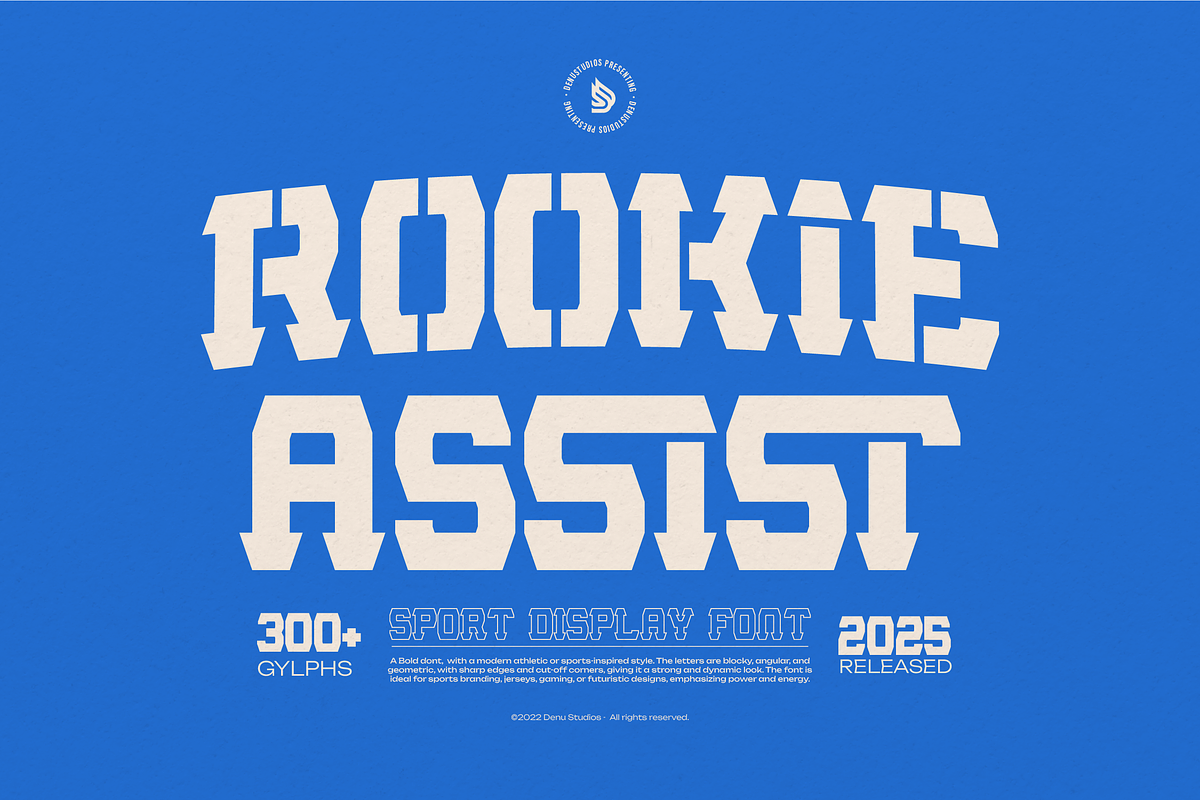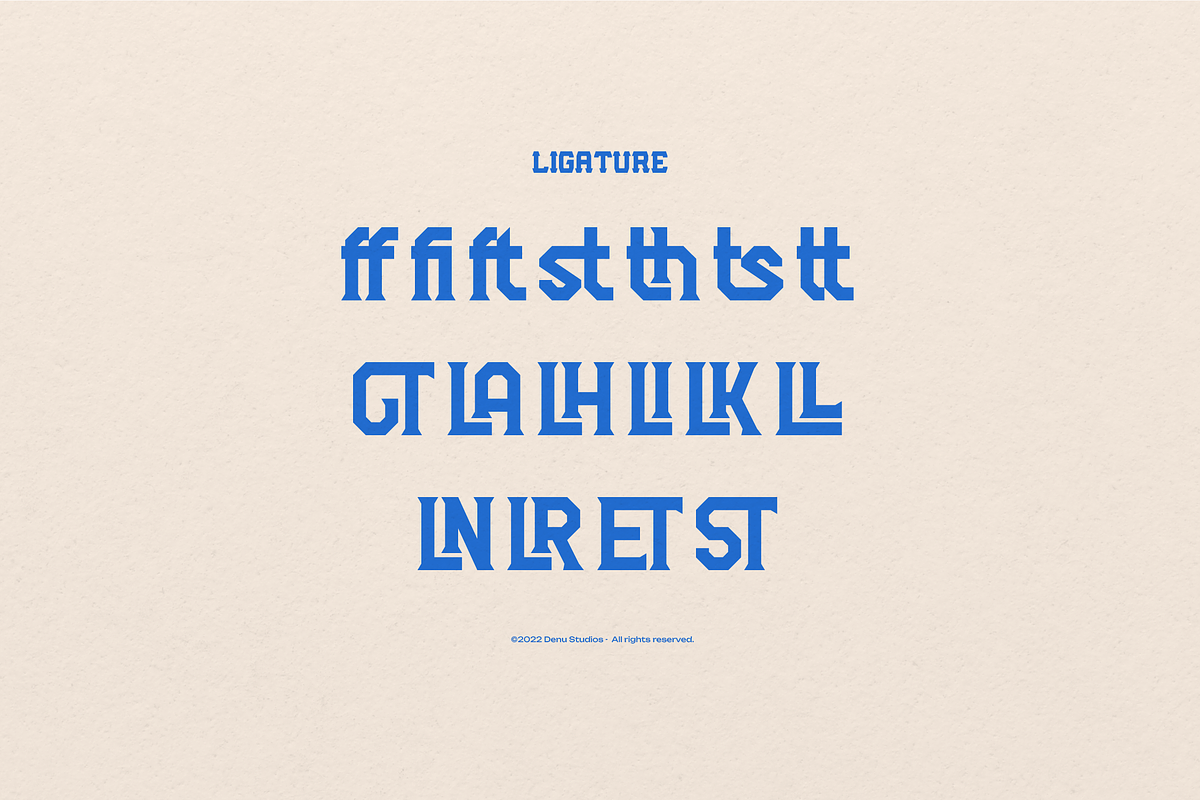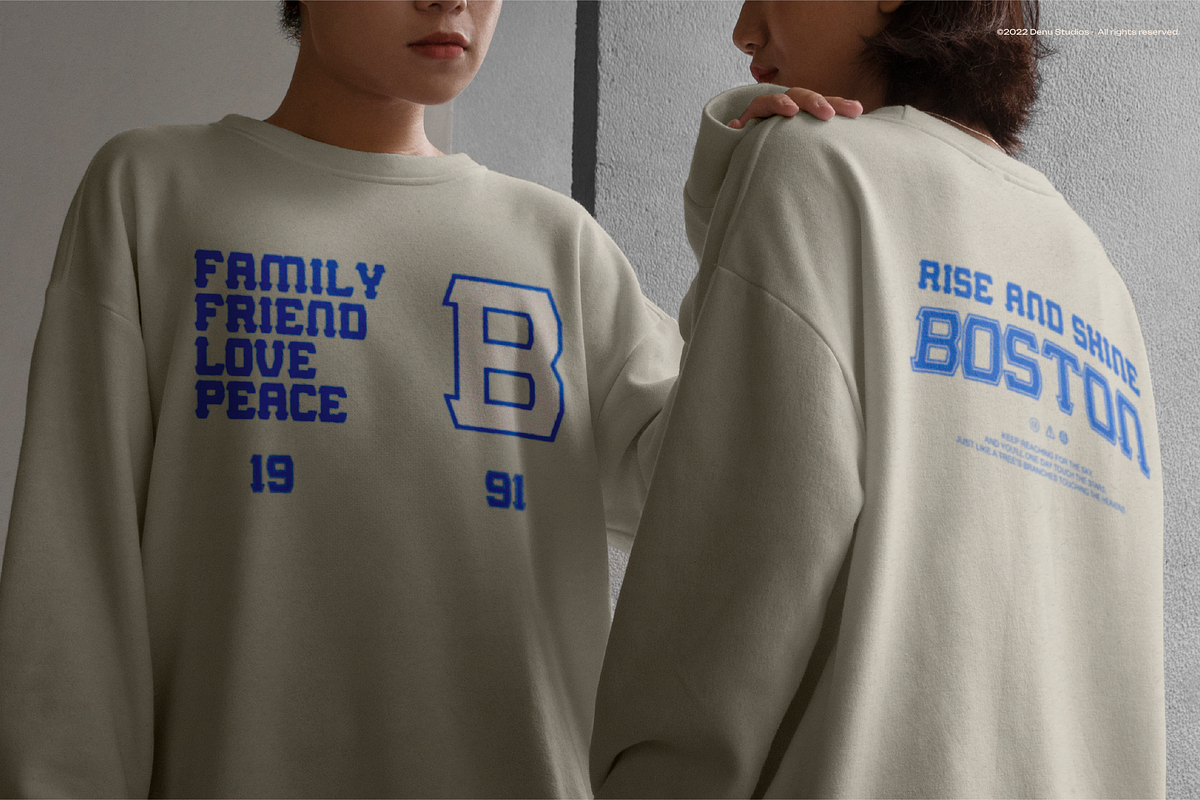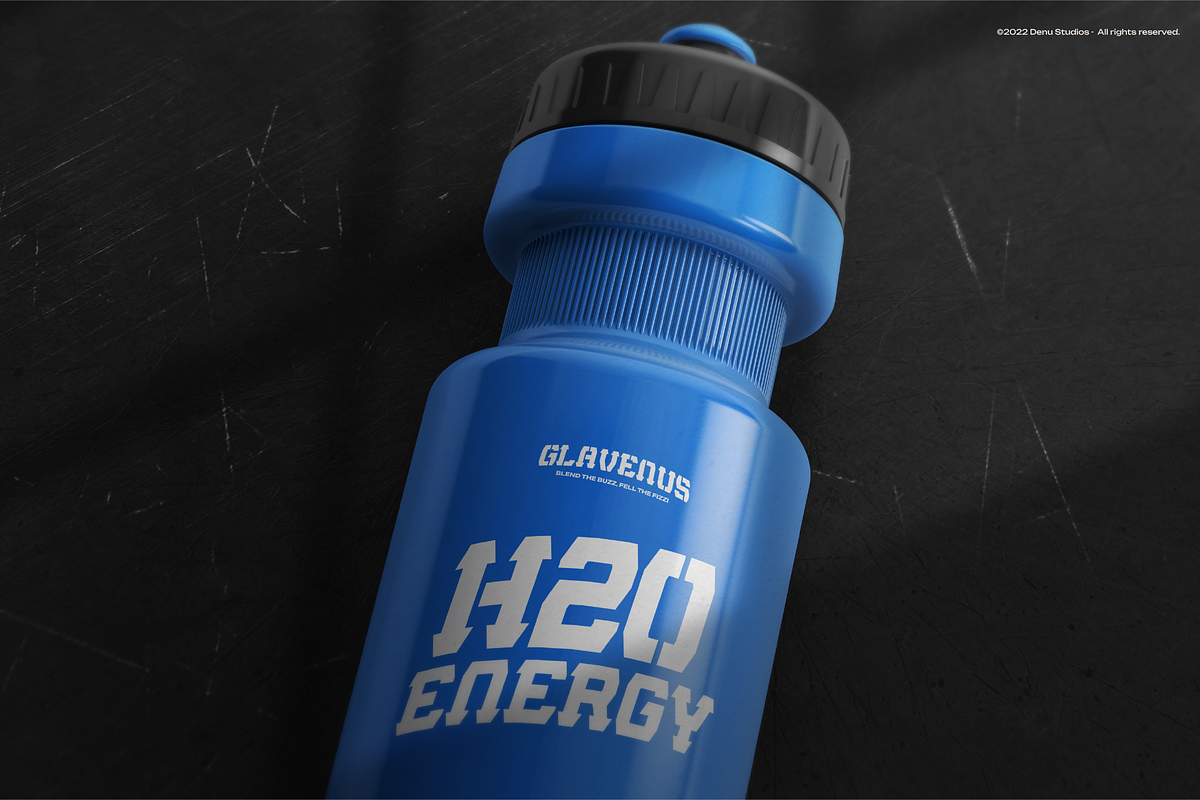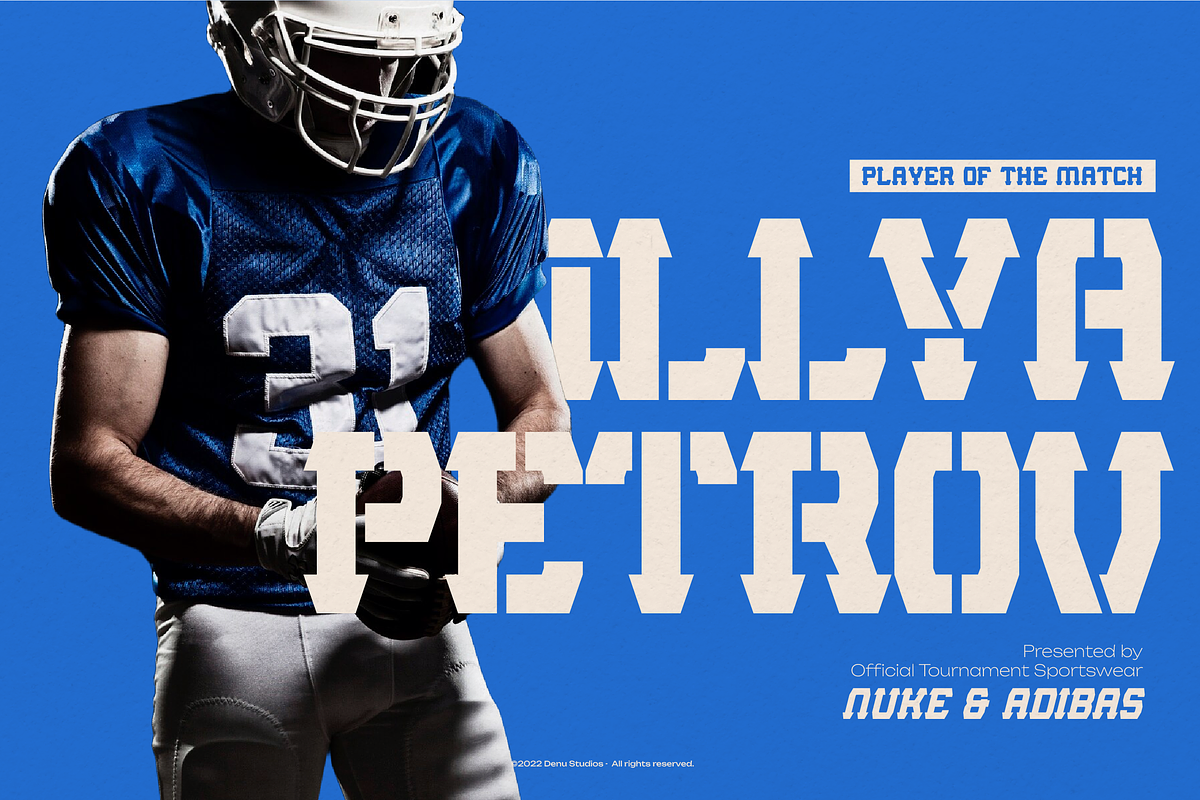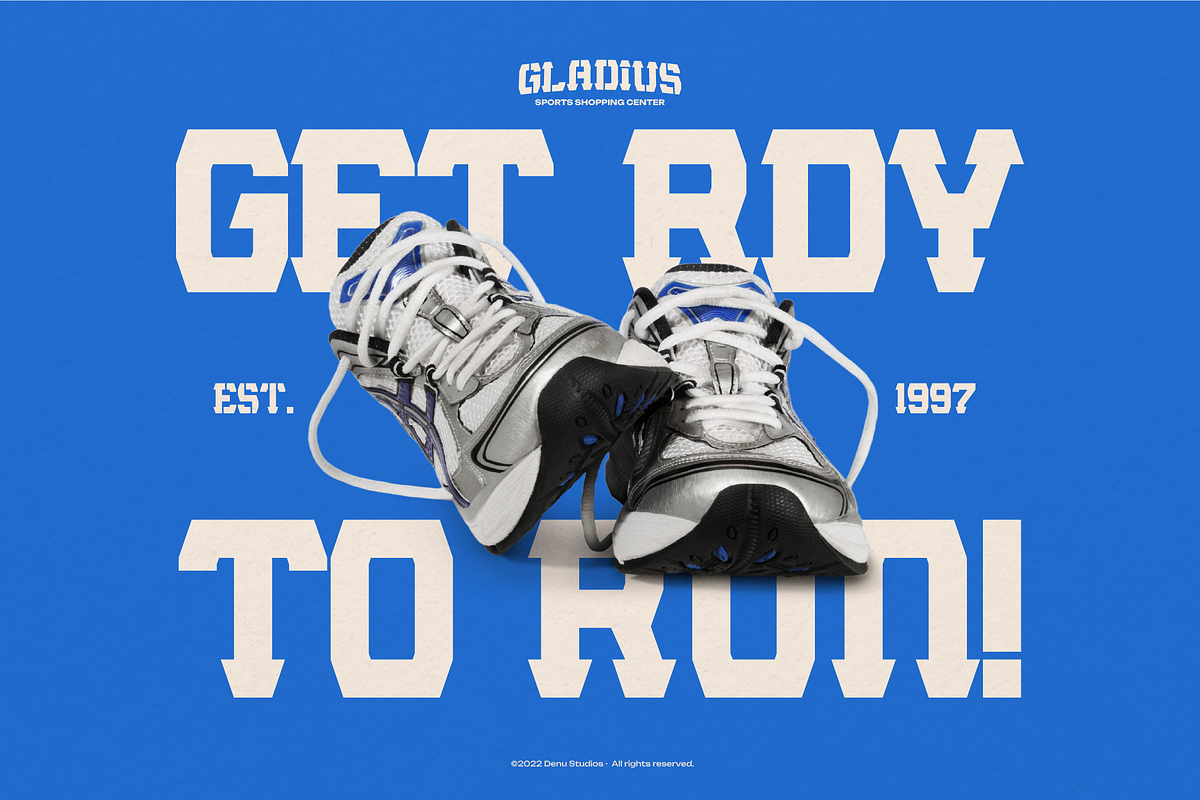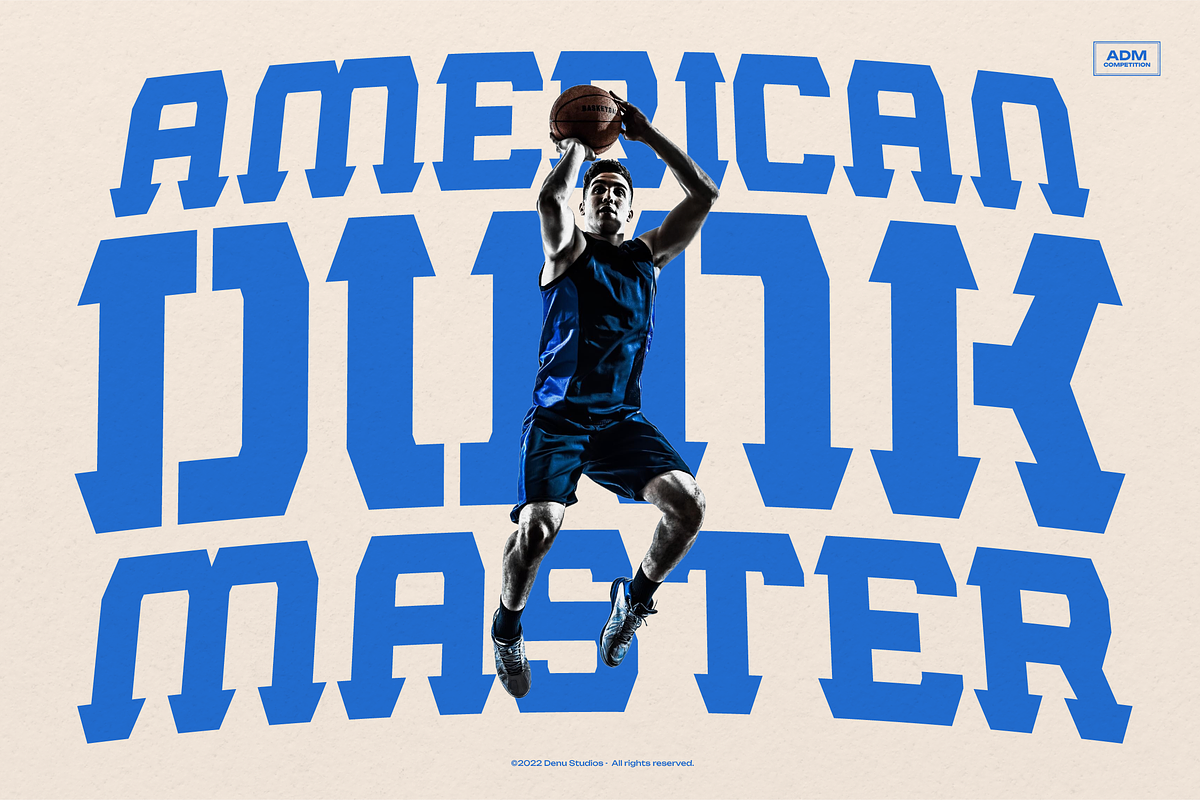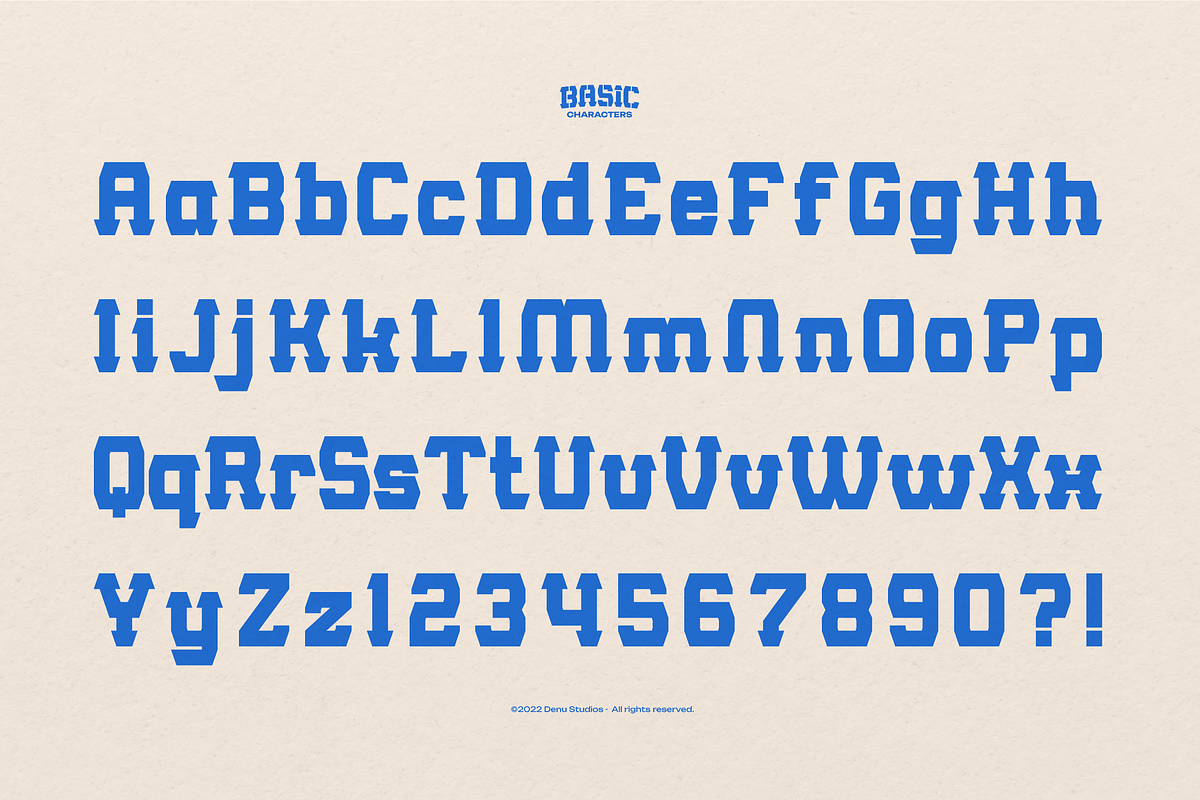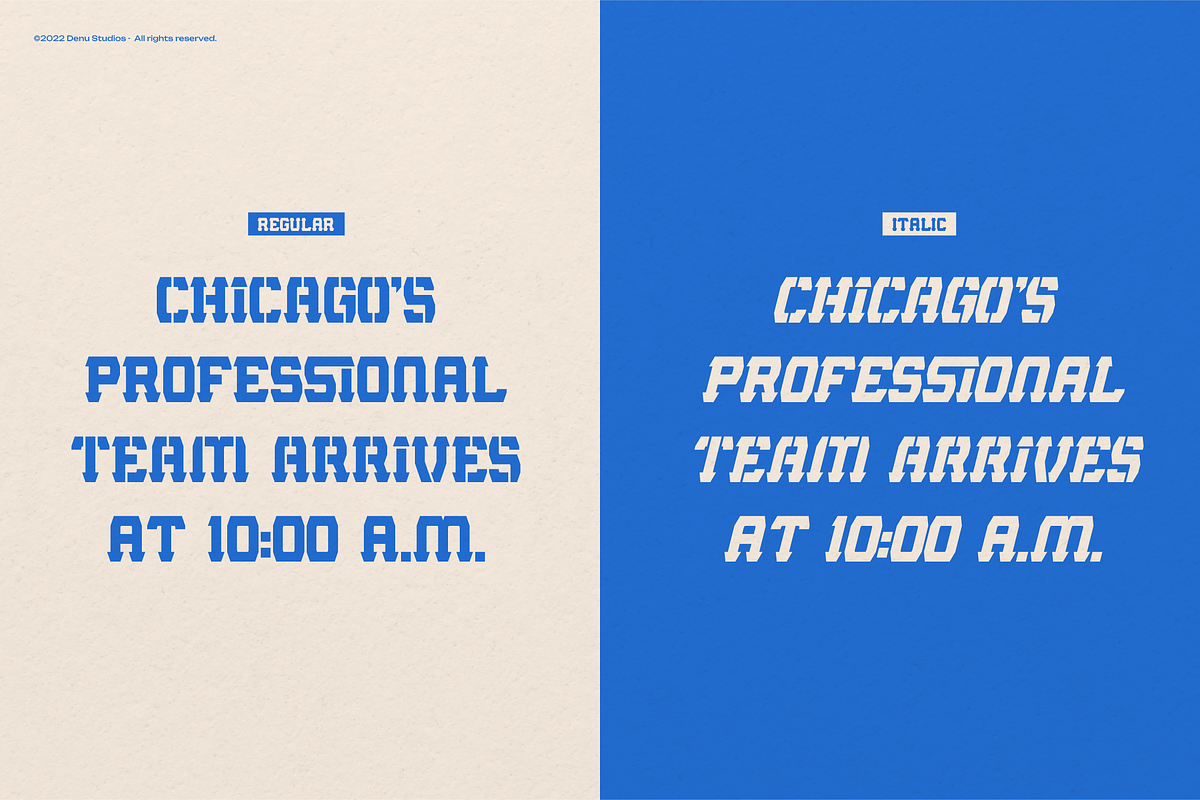
Rookie Assist | Sport Display Font
Rookie Assist | Sport Display Font, from Denustudios, suitable for any projects such as: logos, branding projects, homeware designs, product packaging, mugs, quotes, posters, shopping bags, t-shirts, book covers, name card, invitation cards, greeting cards, label, photography, watermark, special events, and all your other lovely projects that need a Sport Display Font taste.